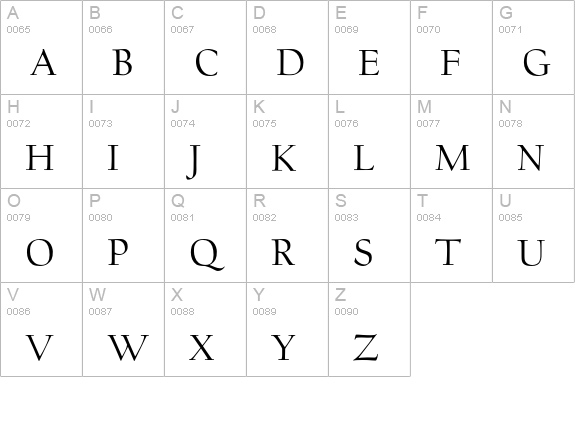
Scripps College OS Std Font Details
Introducing Scripps College OS Std, a stunningly sleek and modern font that exudes sophistication and elegance. Designed with utmost precision and attention to detail, this typeface is the perfect blend of classic and contemporary styles, making it suitable for a wide range of design projects. With its clean and legible letterforms, Scripps College OS Std offers exceptional readability in both print and digital mediums. Whether it's for branding, editorial design, web content, or any other creative endeavor, this font effortlessly adds a touch of refinement to any composition. What sets Scripps College OS Std apart is not only its exceptional design, but also the fact that it is freely available to download at FontsMarket.com. Yes, you read that right - this remarkable font can be yours without spending a dime. Now you can elevate your designs without breaking the bank. Scripps College OS Std provides a versatile set of characters that includes uppercase and lowercase letters, numerals, punctuation marks, and special symbols. Its extensive glyph coverage ensures compatibility with a variety of languages, making it accessible to designers worldwide. Crafted with a keen eye for detail, Scripps College OS Std offers exceptional kerning and spacing, resulting in a harmonious and balanced typography. This attention to detail ensures that every word and sentence is visually captivating and well-balanced, enhancing the overall aesthetic appeal of your designs. So, whether you're a professional designer, a student, or simply an enthusiast with a passion for beautiful typography, Scripps College OS Std is the perfect addition to your font collection. And the best part? You can download it for free at FontsMarket.com. Don't miss out on this opportunity to elevate your designs with a font that exudes elegance and style. Get Scripps College OS Std today and take your design projects to new heights.